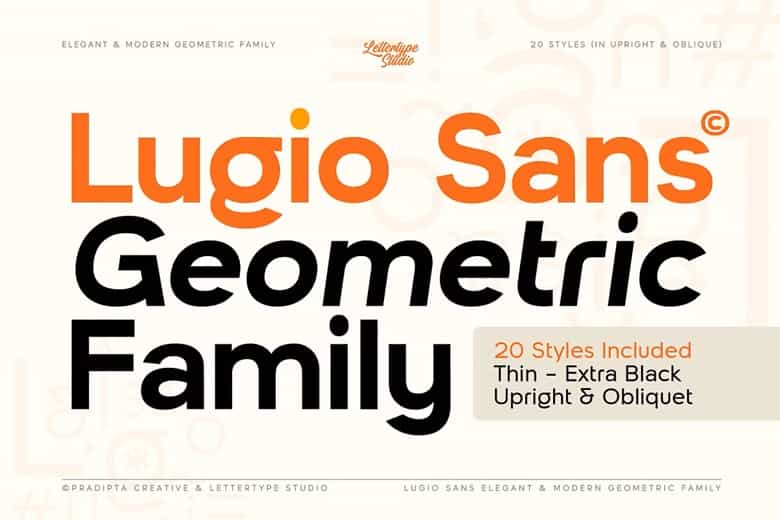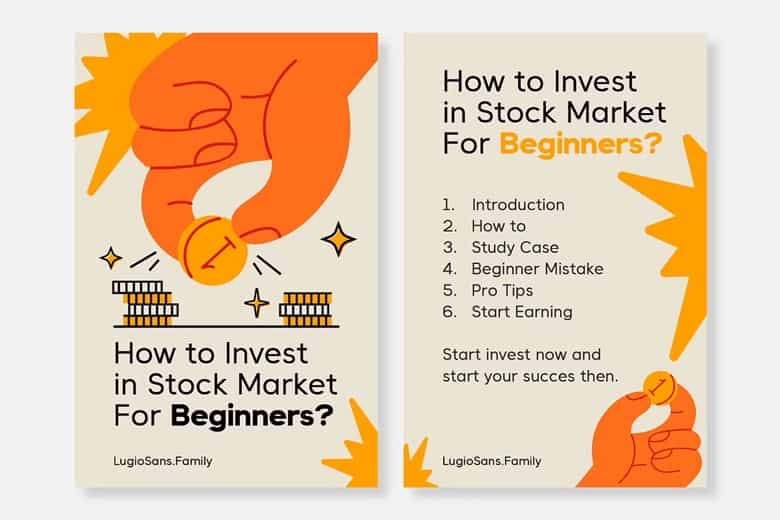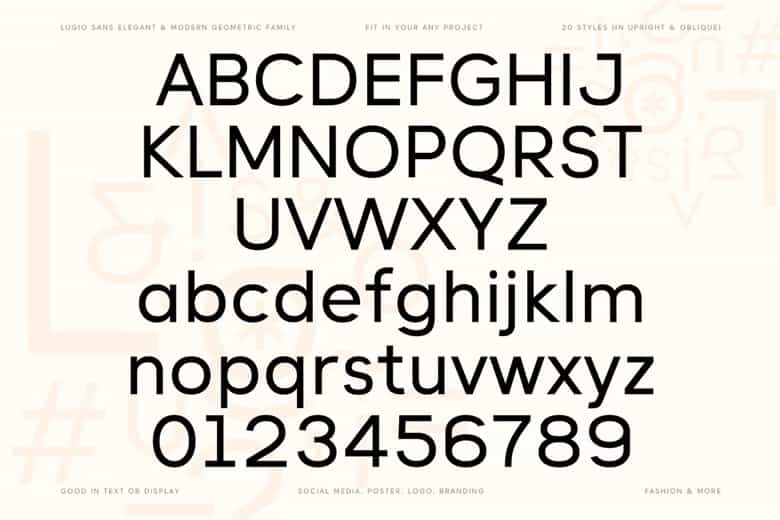
The Lugio Sans family is a modern grotesque sans-serif design focused on being clear, in control and adaptable. Having 20 carefully designed options from Thin to Extra Black allows it to change — for any type of big, simple or classy designs you want. It is based on accurate angles and the idea of modern architecture, but it also includes the humanist features needed for easy reading on various surfaces.